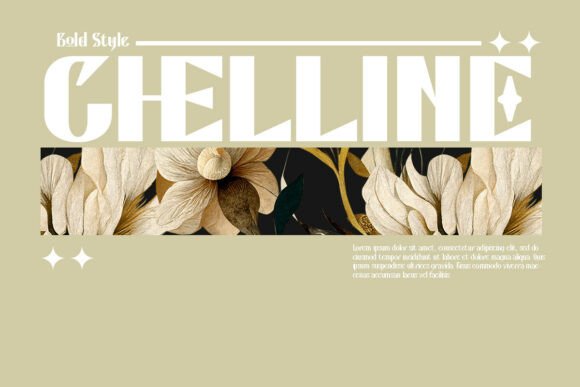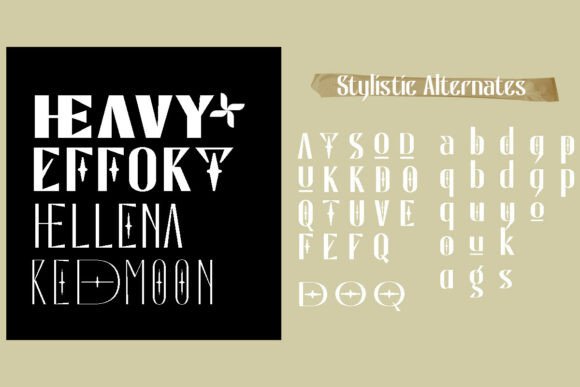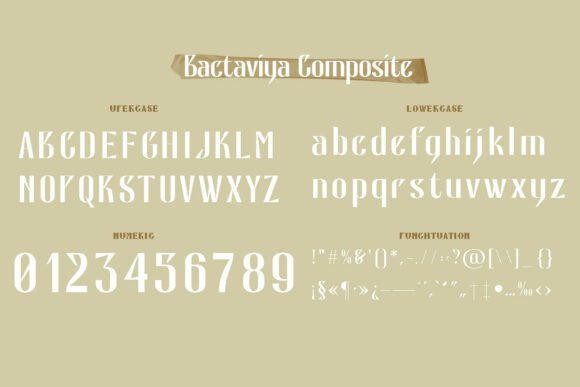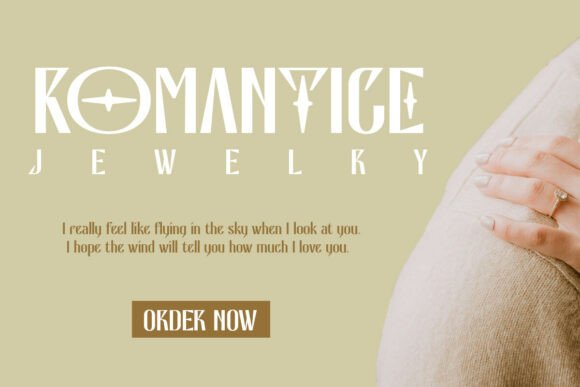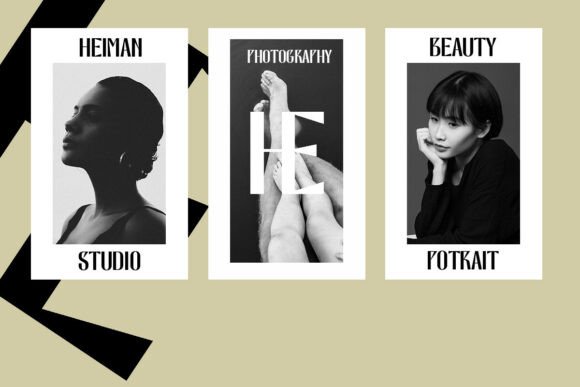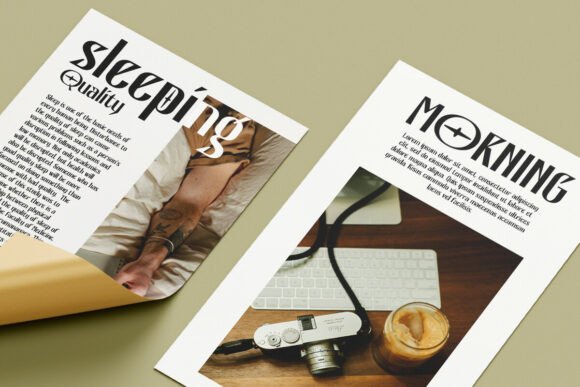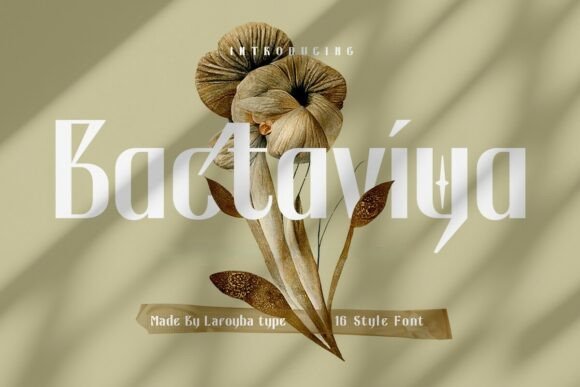
Bactaviya Font: Elevate Your Designs with 16 Unique Styles
Are you looking for a font that can add a bold character and elegant aesthetics to your designs? Look no further than Bactaviya, a font family that features 16 distinct styles to help you bring your creative projects to life. In this article, we’ll explore the world of Bactaviya and discover why it’s the perfect choice for designers, crafters, and artists.
What is Bactaviya?
Bactaviya is a unique font family that combines geometric rigidity with artistic uniqueness. Its structured yet dynamic design exudes a modern, futuristic, and sophisticated feel, making it perfect for a wide range of applications, from branding and editorial work to posters, packaging, and more.
Why Choose Bactaviya?
So, what sets Bactaviya apart from other fonts? Here are just a few reasons why you should consider adding it to your collection:
- 16 Distinct Styles – With Bactaviya, you get maximum flexibility for diverse design needs. Whether you’re working on a logo, album cover, or fashion brand, there’s a style to suit your project.
- Stylistic Alternates & Ligatures – Bactaviya offers unique letter variations to enhance your creativity. With stylistic alternates and ligatures, you can add an extra layer of sophistication to your designs.
- Strong & Elegant Character – Bactaviya strikes the perfect balance between boldness and refined aesthetics. Its strong character makes it perfect for headlines and titles, while its elegant feel ensures it will complement your design.
- Versatile for Various Uses – Bactaviya is ideal for a wide range of applications, including logos, album covers, fashion branding, and more. Its versatility makes it a valuable addition to any designer’s toolkit.
The Benefits of Bactaviya
Bactaviya offers a range of benefits that make it an attractive choice for designers and crafters. Here are just a few:
- Time-Saving – With 16 distinct styles to choose from, you can quickly find the perfect font to match your design vision, saving you time and effort.
- Consistency – Bactaviya’s font family ensures consistency across your designs, helping to establish a strong brand identity.
- Creativity – With stylistic alternates and ligatures, you can experiment with different variations to add a unique touch to your designs.
- Professionalism – Bactaviya’s strong and elegant character ensures your designs look professional and polished, making it perfect for client work or personal projects.
How to Use Bactaviya
Using Bactaviya is easy. Here are a few tips to get you started:
- Pair it with Other Fonts – Experiment with pairing Bactaviya with other fonts to create a unique and visually appealing design.
- Experiment with Styles – Try out different styles to find the one that works best for your project.
- Customize – Use stylistic alternates and ligatures to add a personal touch to your designs.
Bactaviya is a game-changing font family that offers 16 unique styles to help you elevate your designs. With its strong and elegant character, stylistic alternates, and ligatures, it’s the perfect choice for designers, crafters, and artists. Whether you’re working on a branding project, editorial work, or personal creative project, Bactaviya is sure to make your designs stand out. So why wait? Add Bactaviya to your collection today and unleash your creativity without limits!